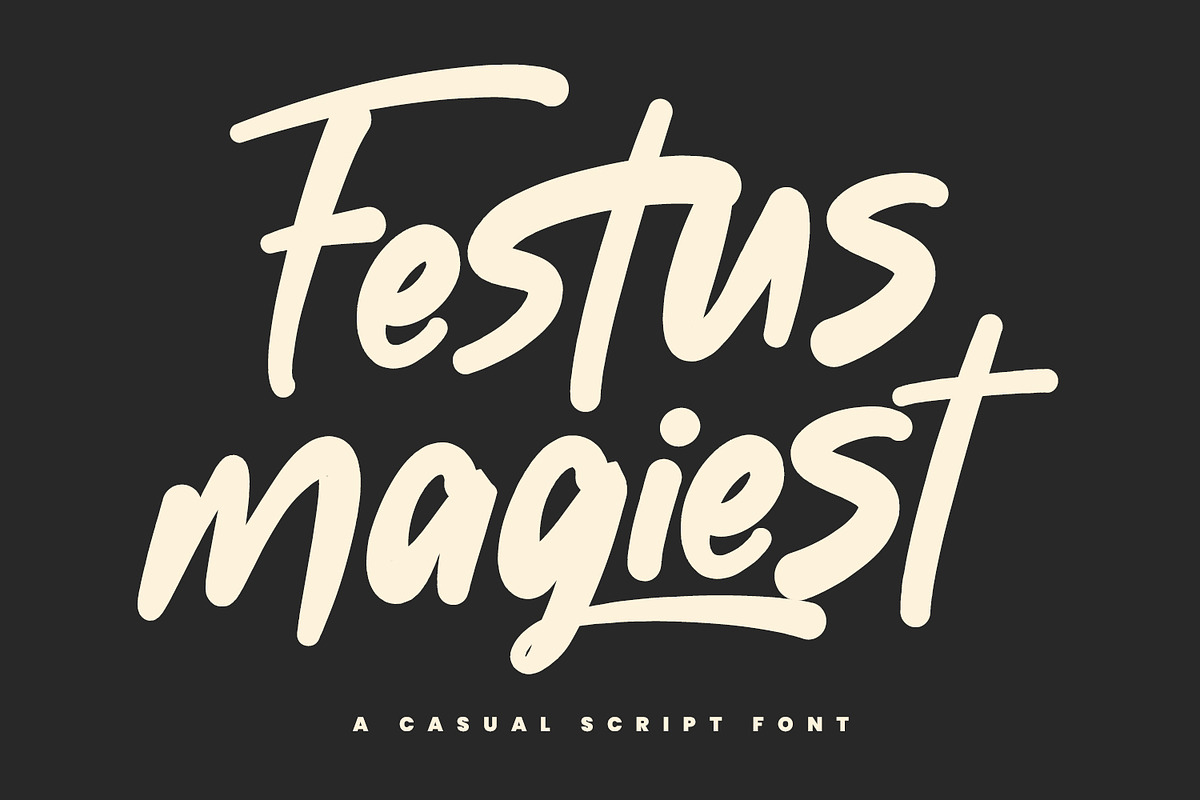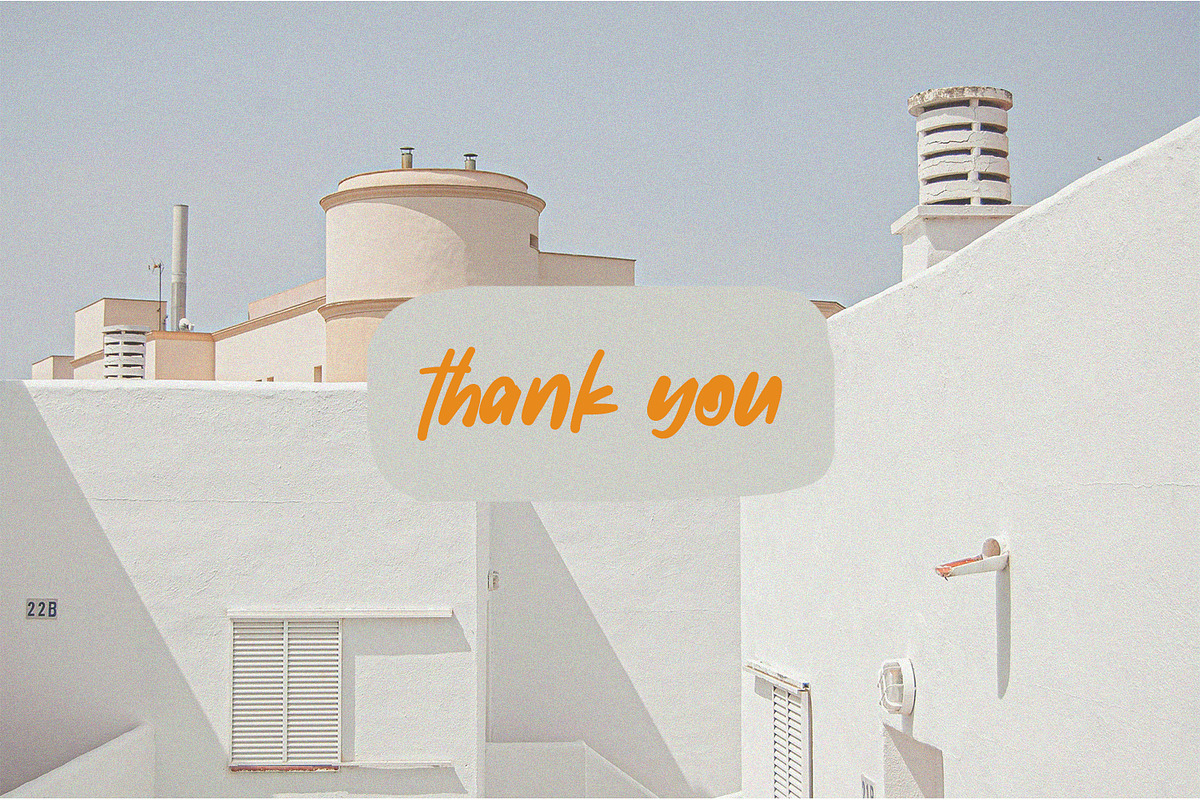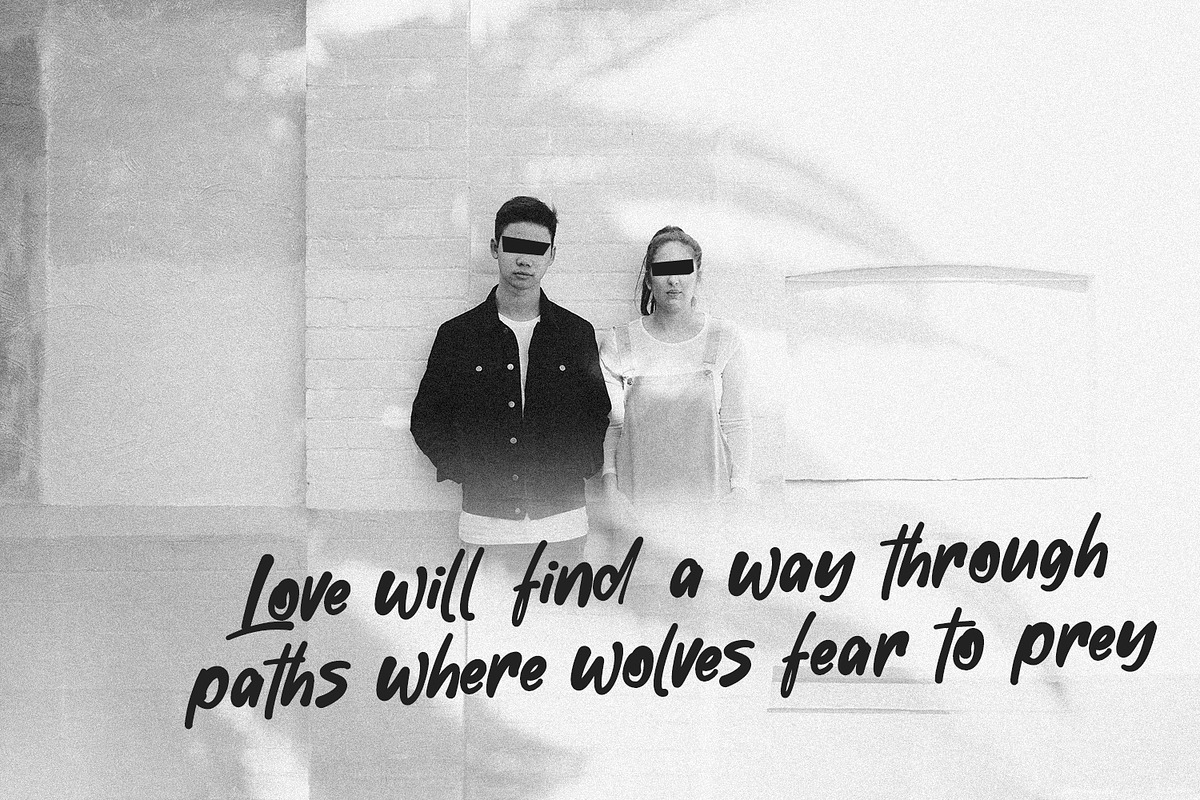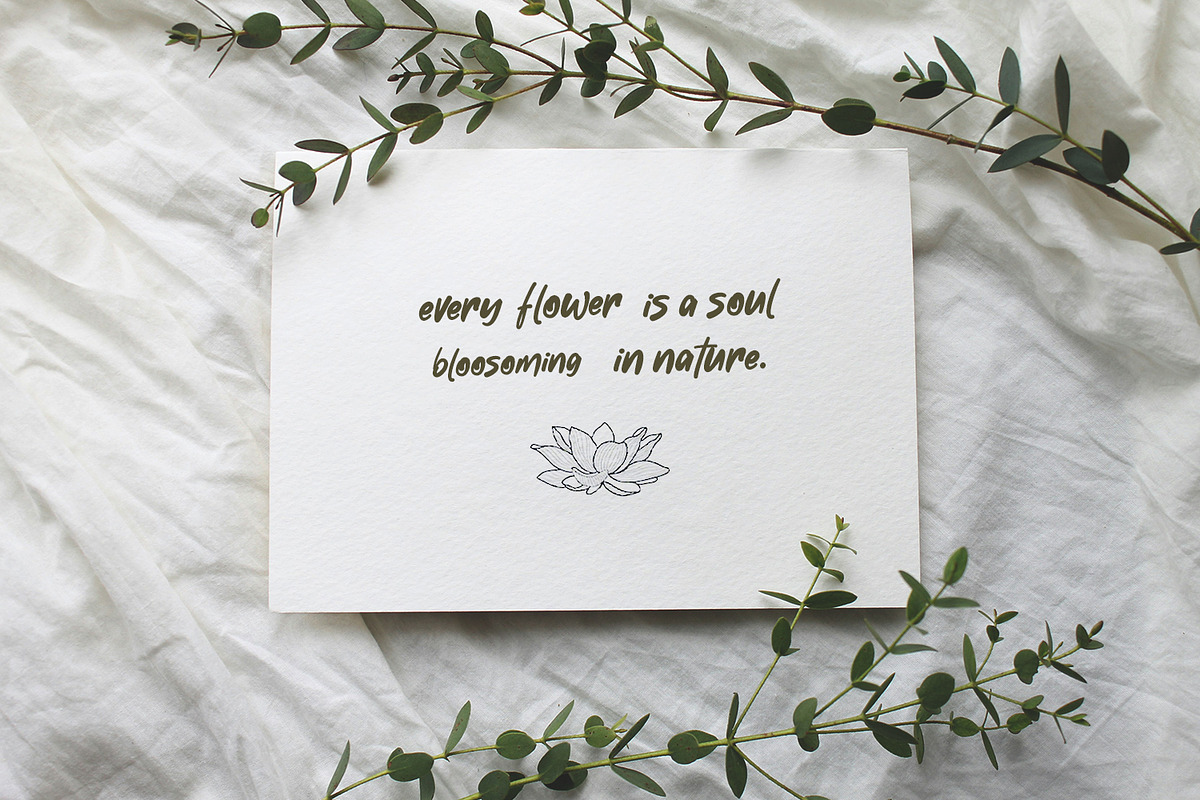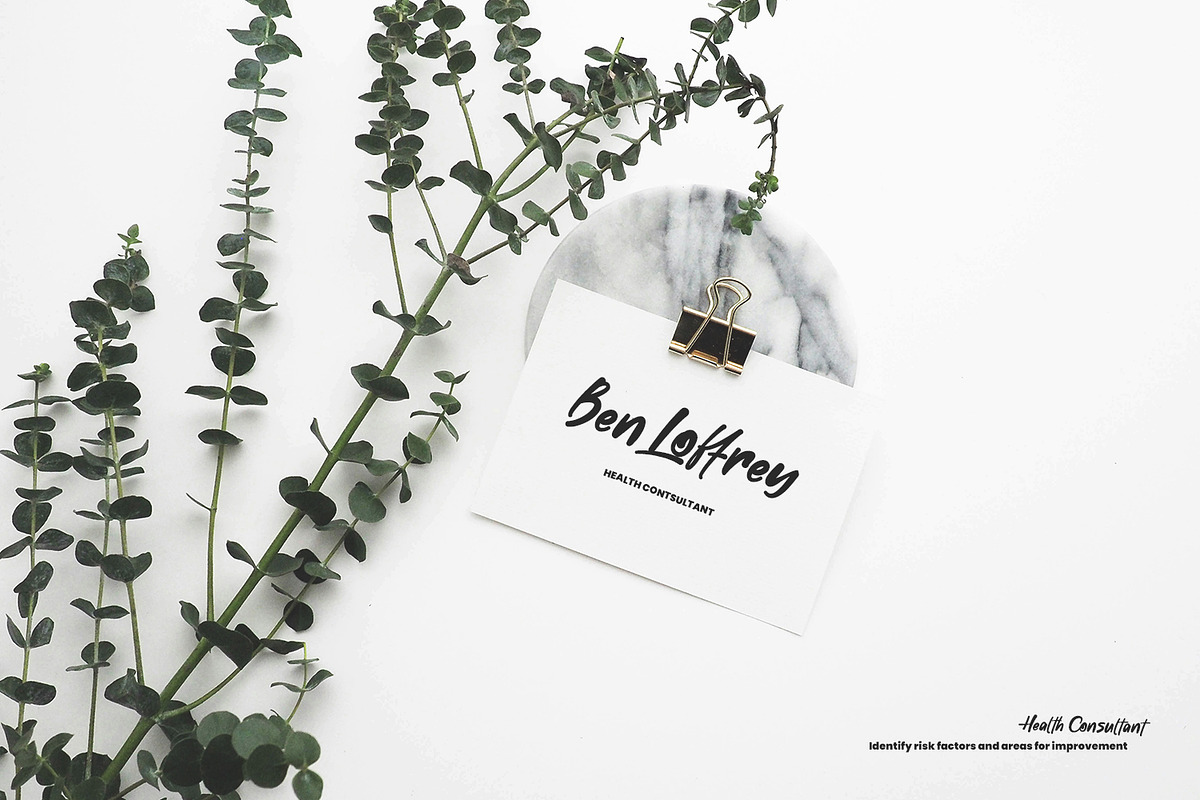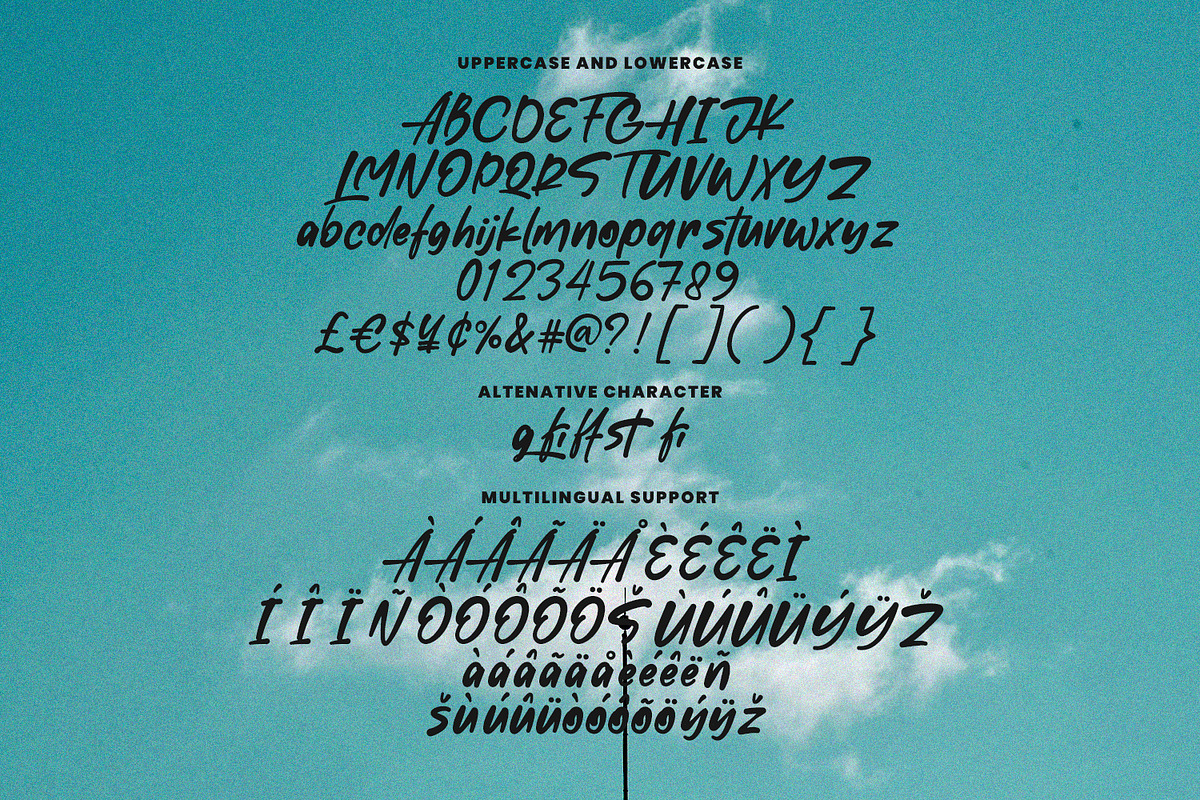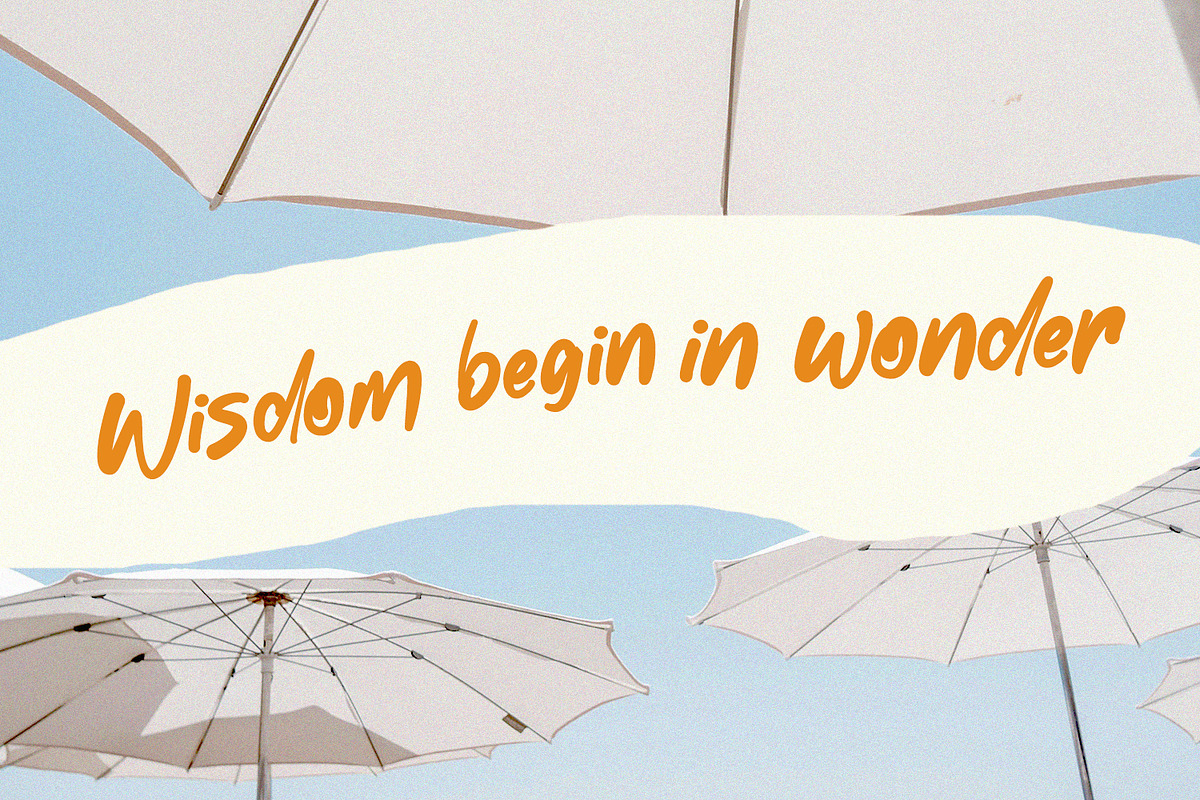
Festus Magiest Casual Script Font
Give your designs an authentic handcrafted feel. “Festus Magiest Casual Script Font” is perfectly suited to stationery, logos and much more. Include alternative character and ligature characters.